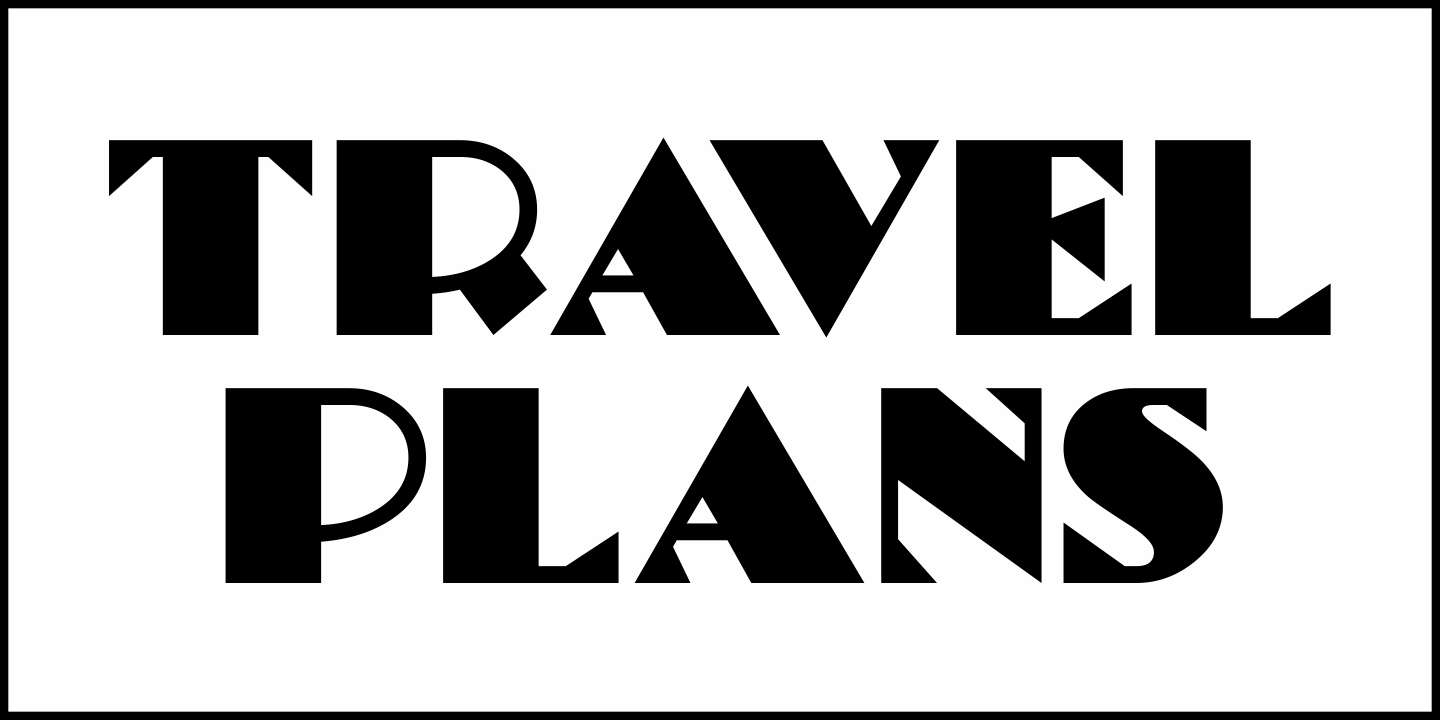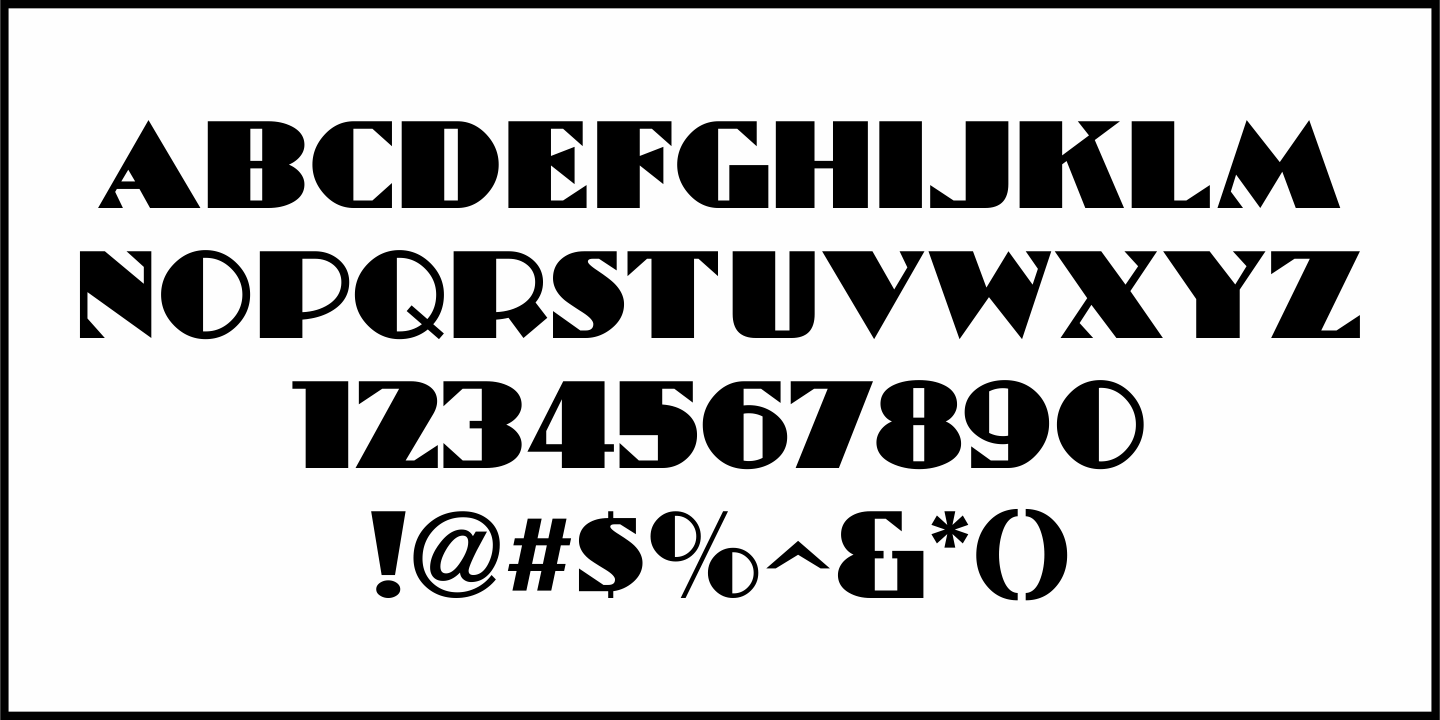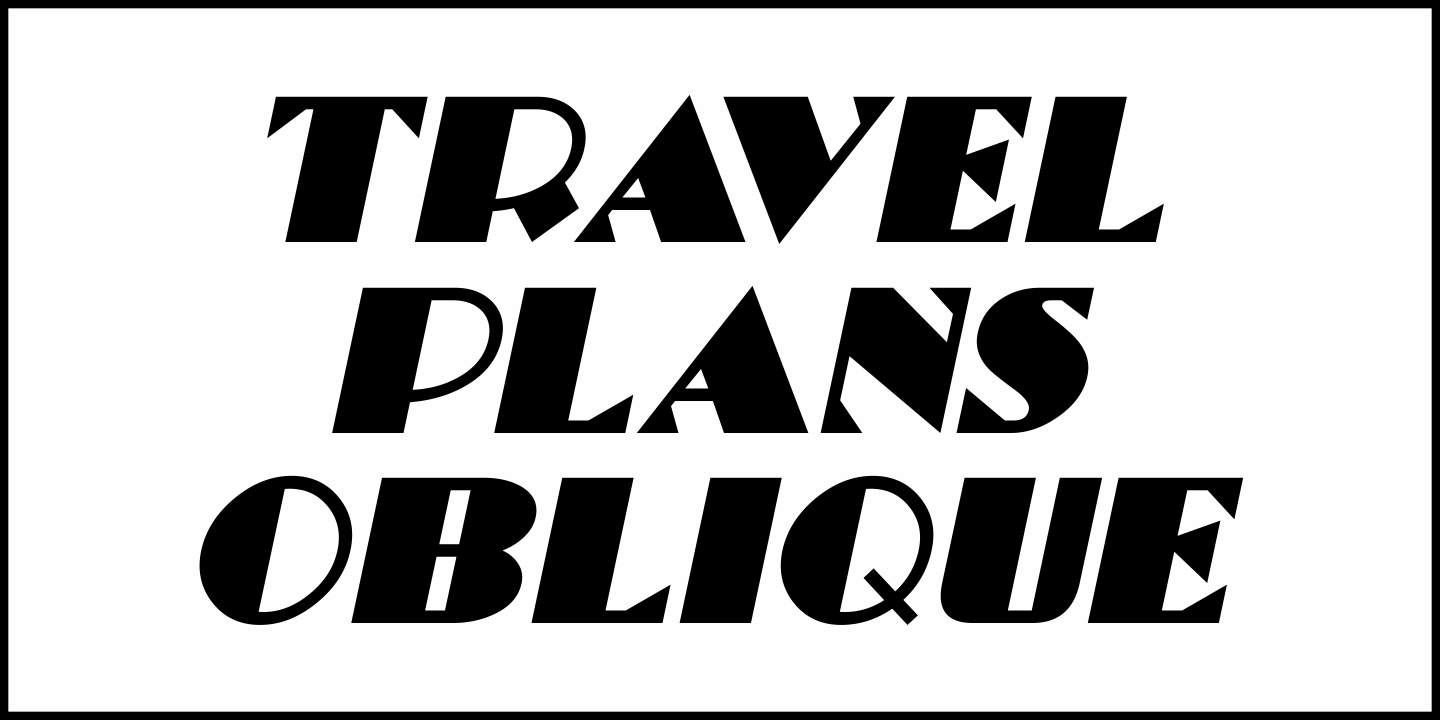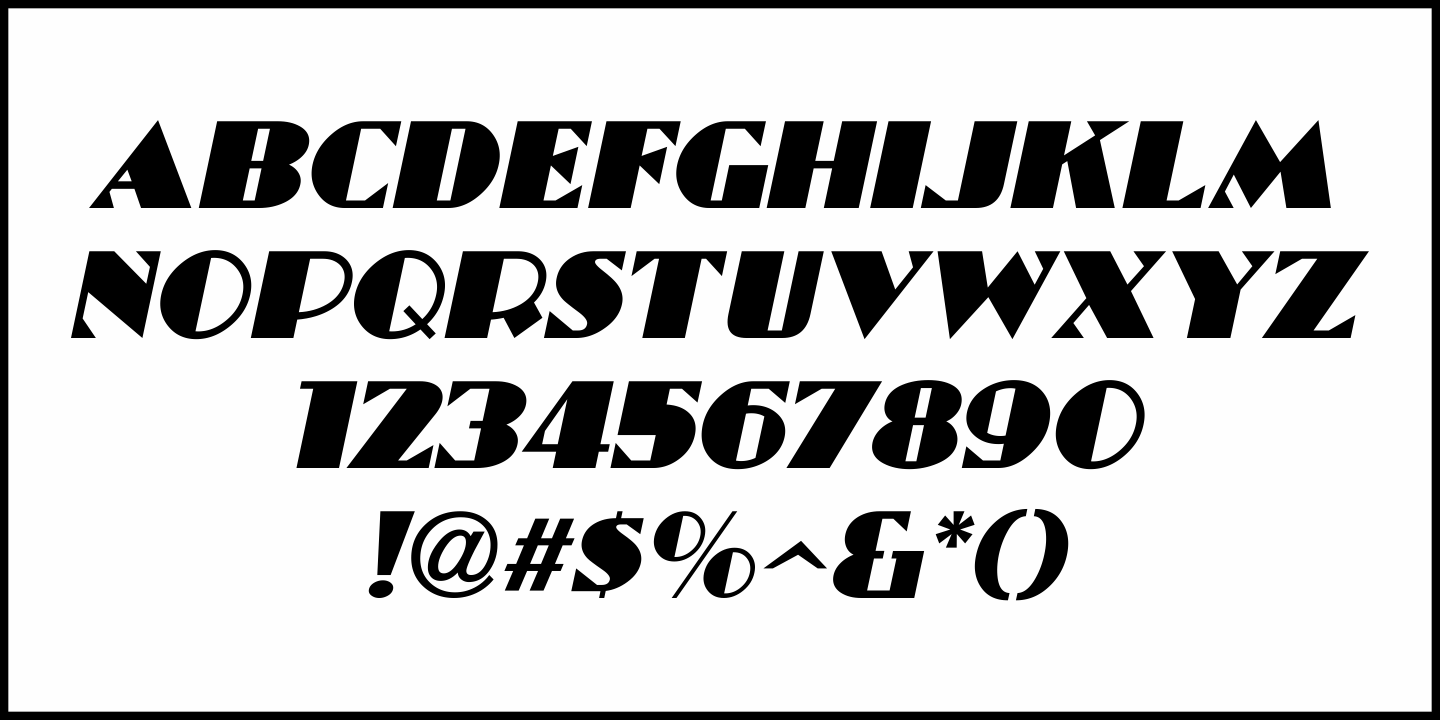
Travel Plans
A 1930s travel poster from American Airlines had the airline’s name in a classic thick-and-thin Art Deco design of hand lettering. With the addition of angular spurs, some of the characters become semi-serif in nature.
This type style is now available as Travel Plans JNL, in both regular and oblique versions.
Travel Plans JNL Regular by Jeff Levine Fonts